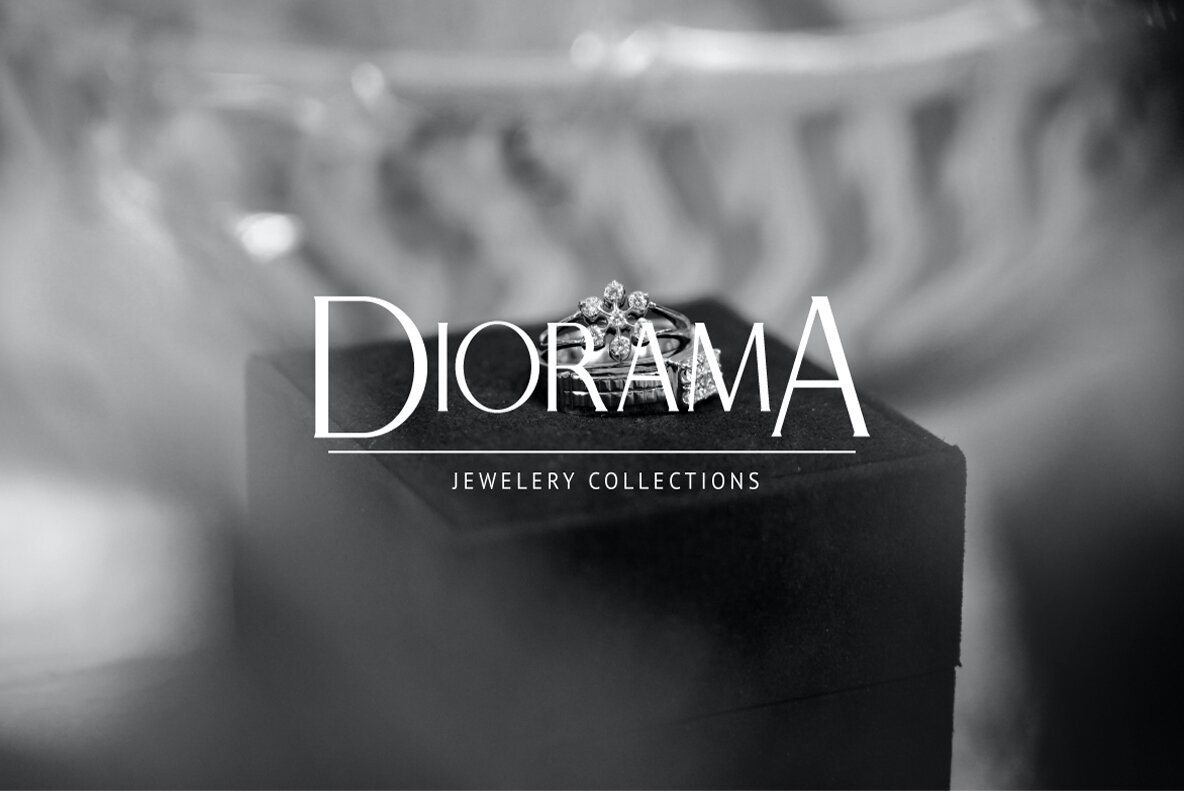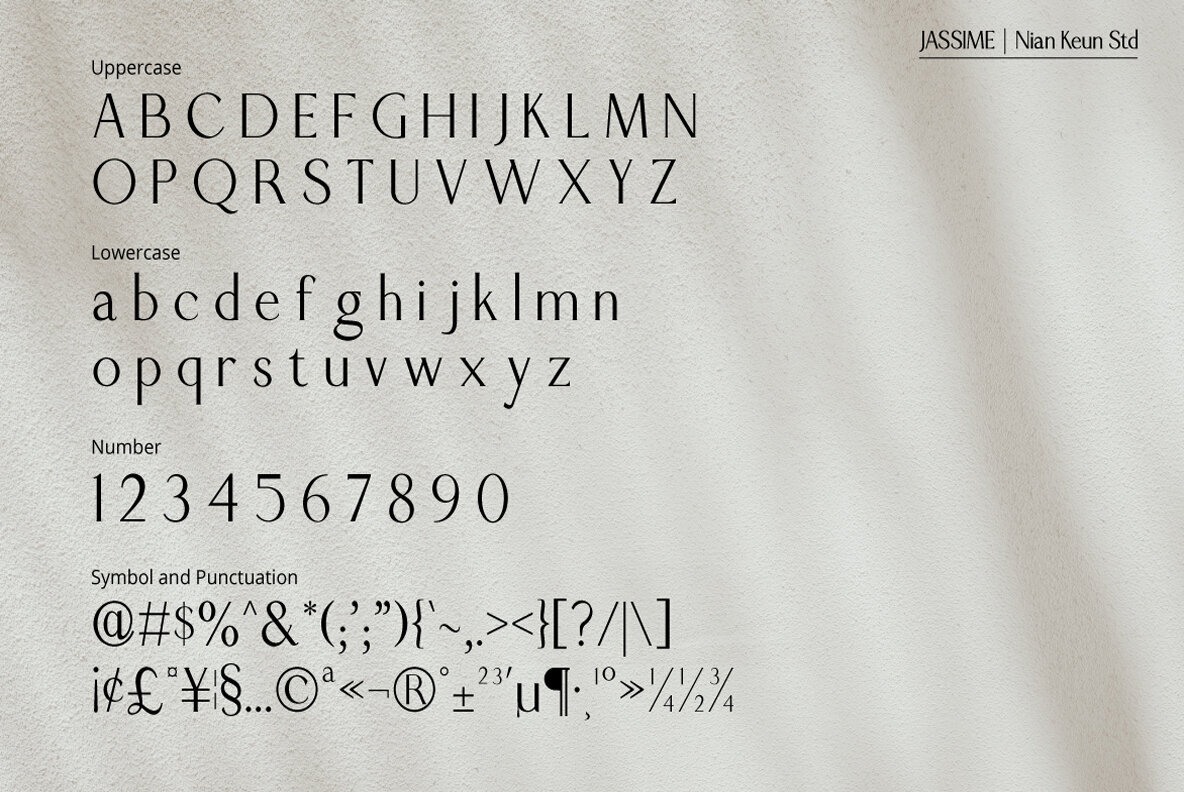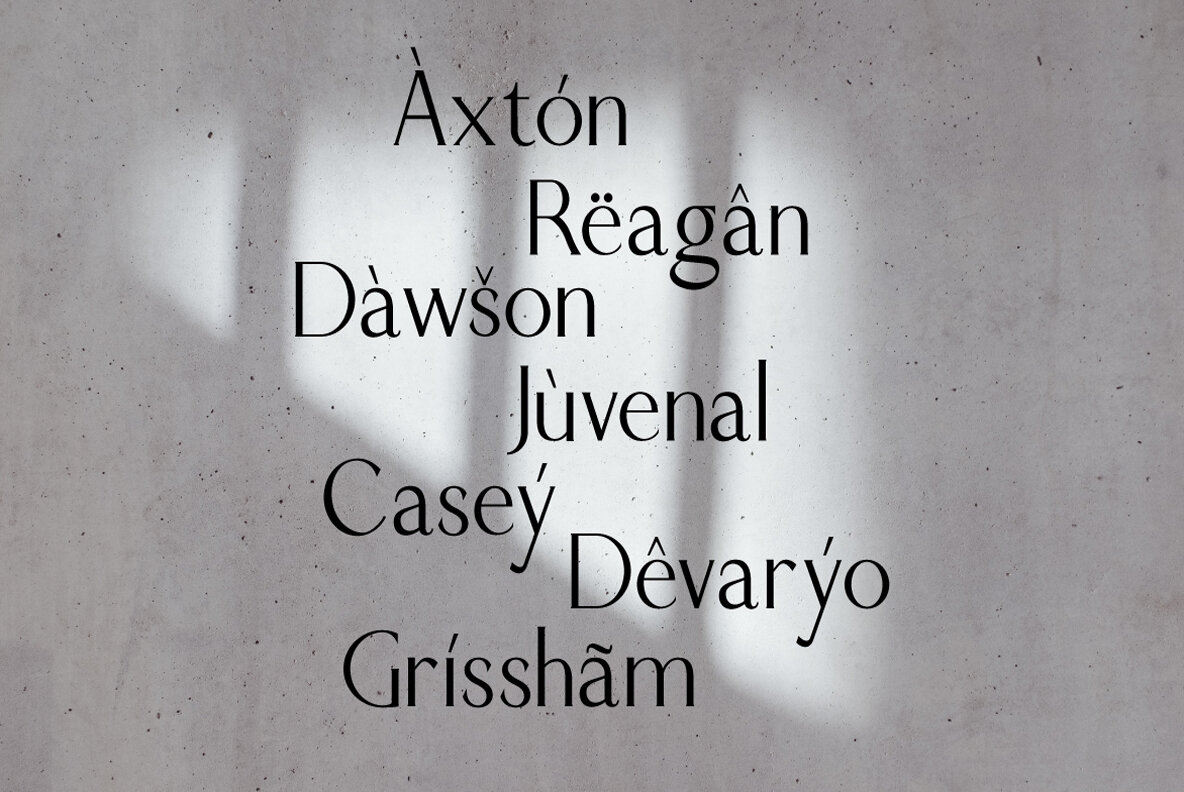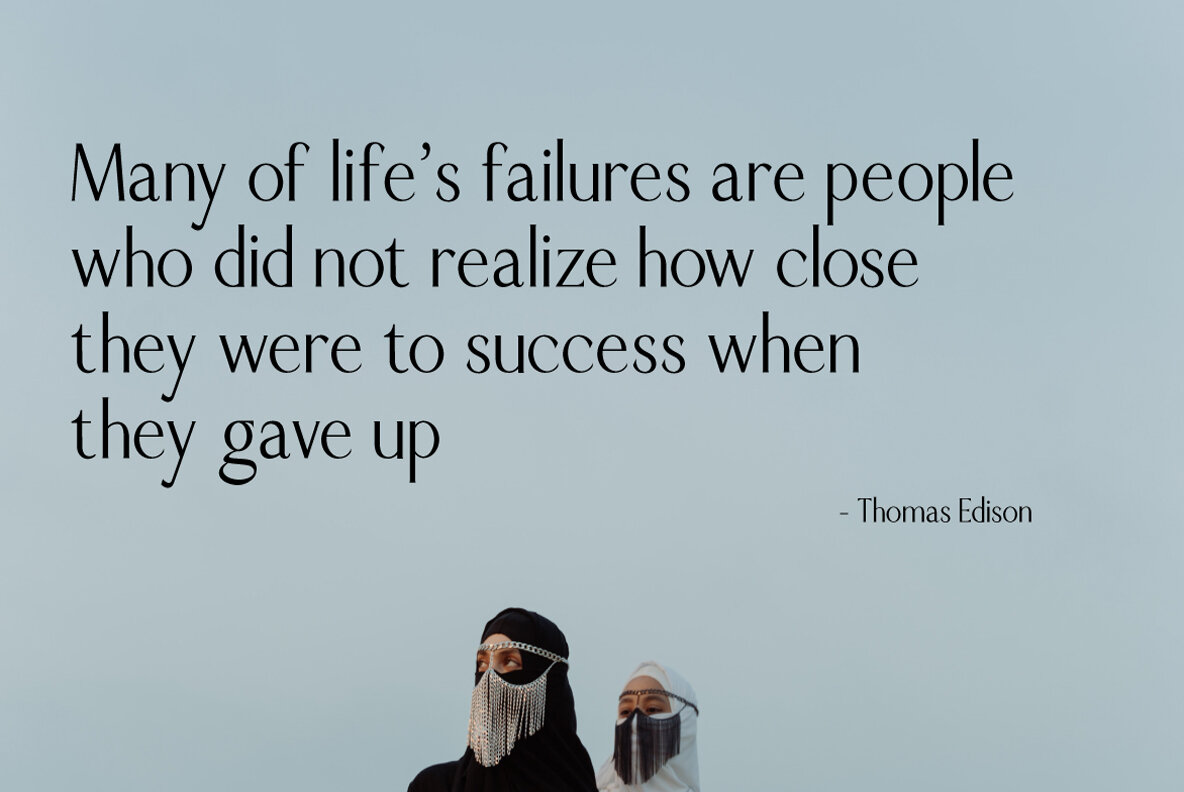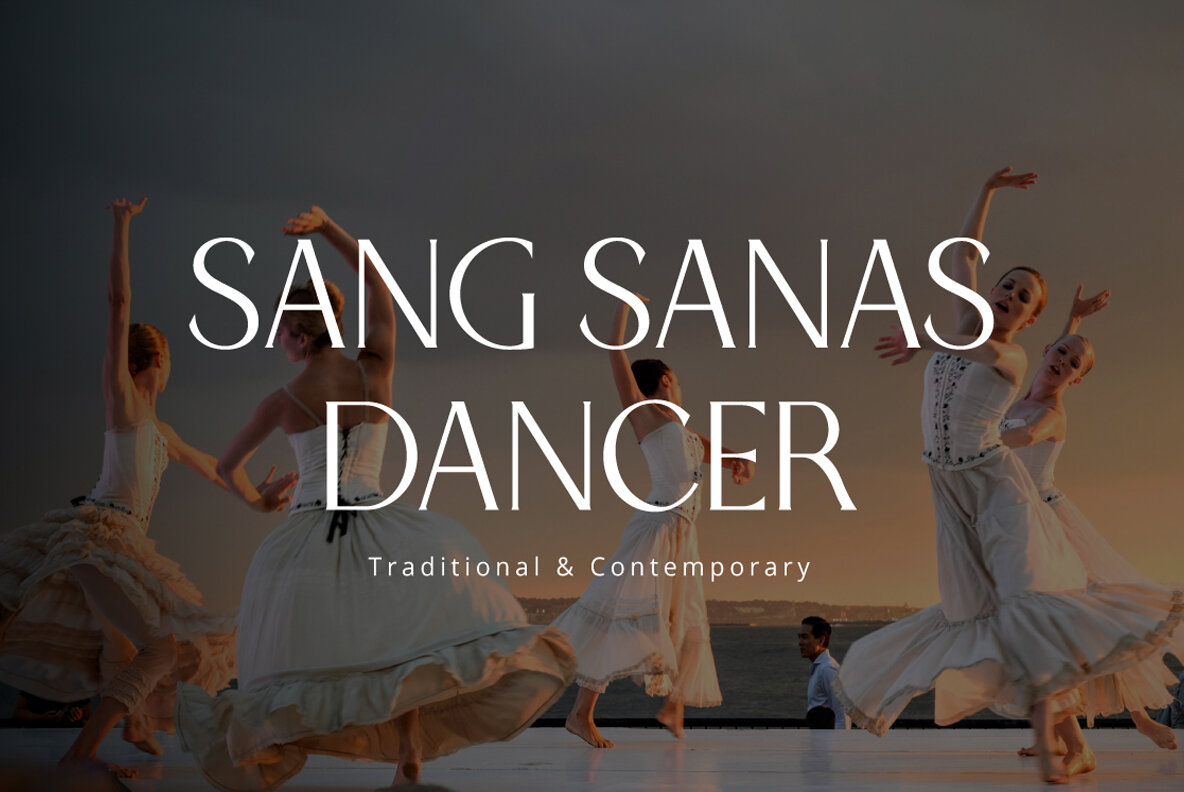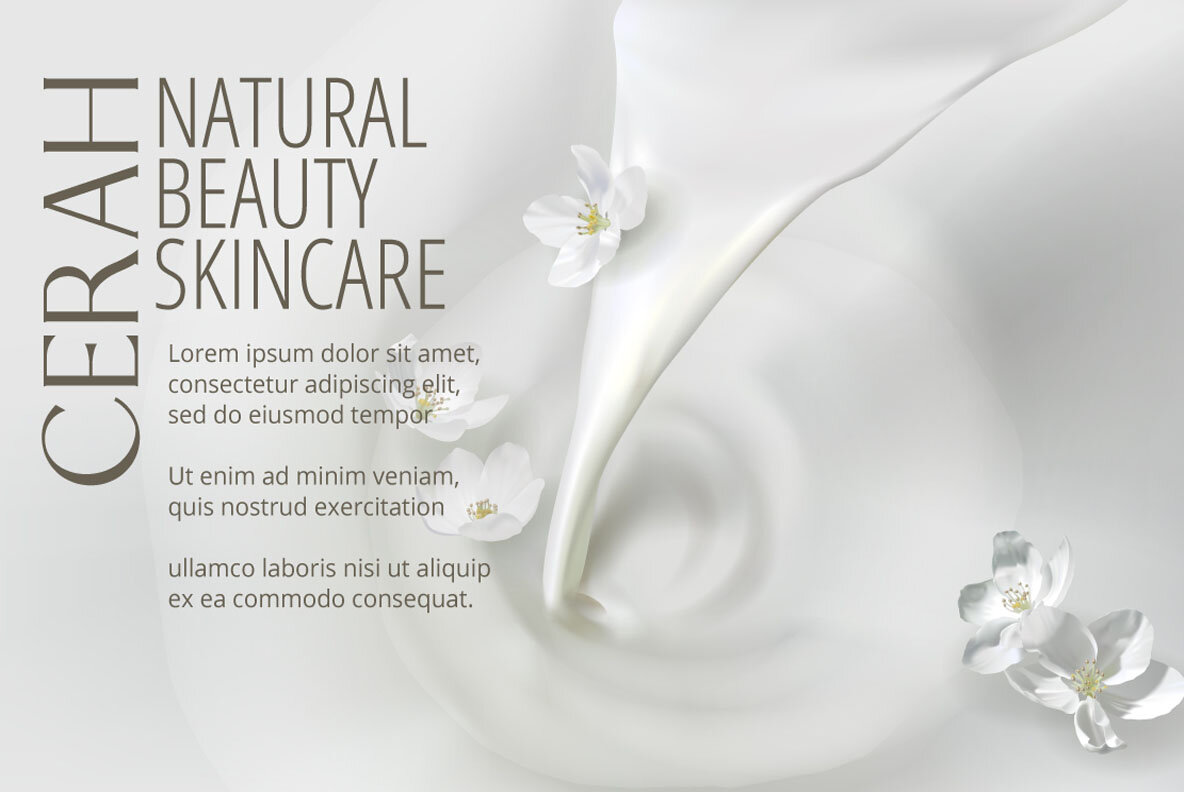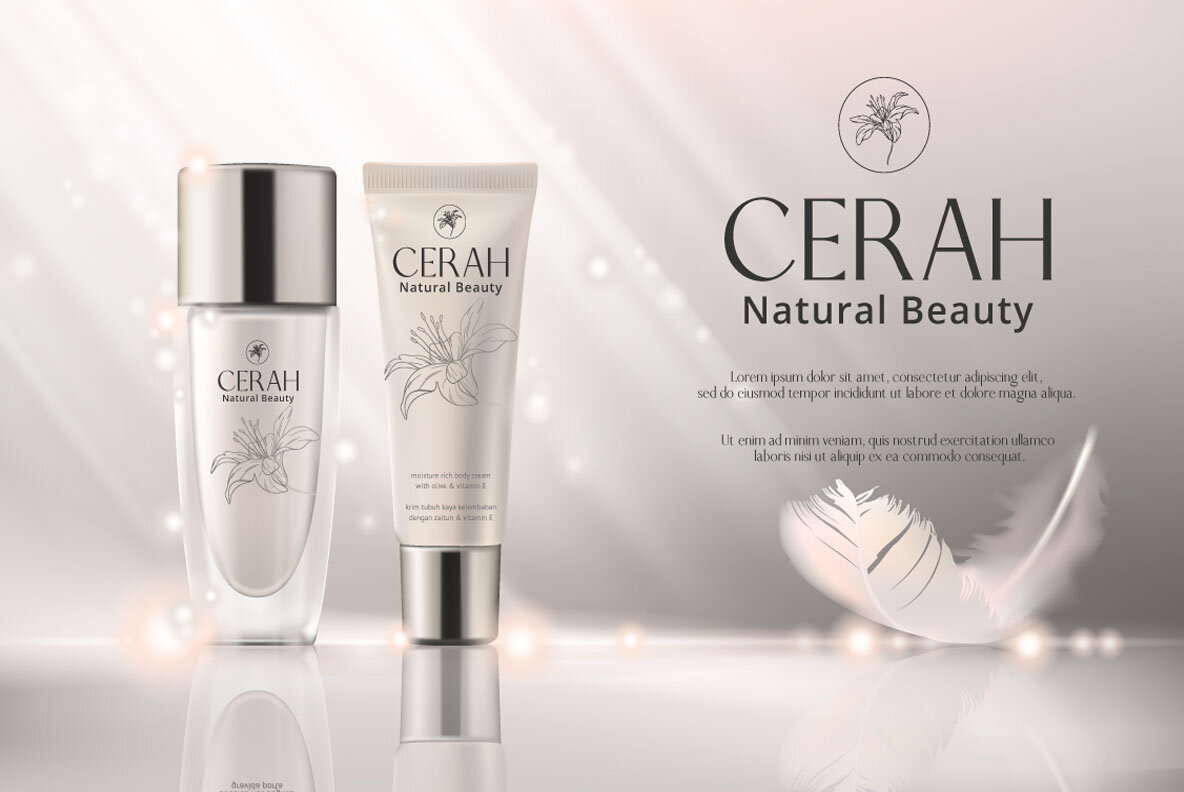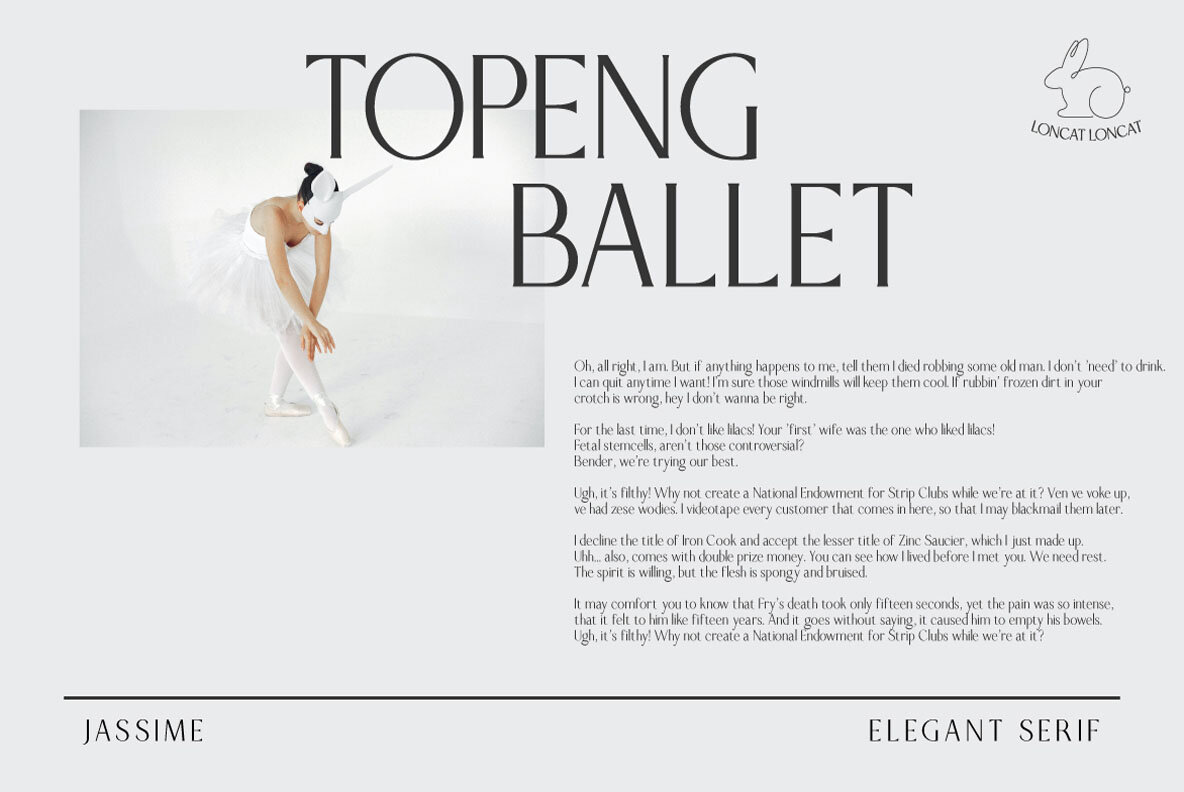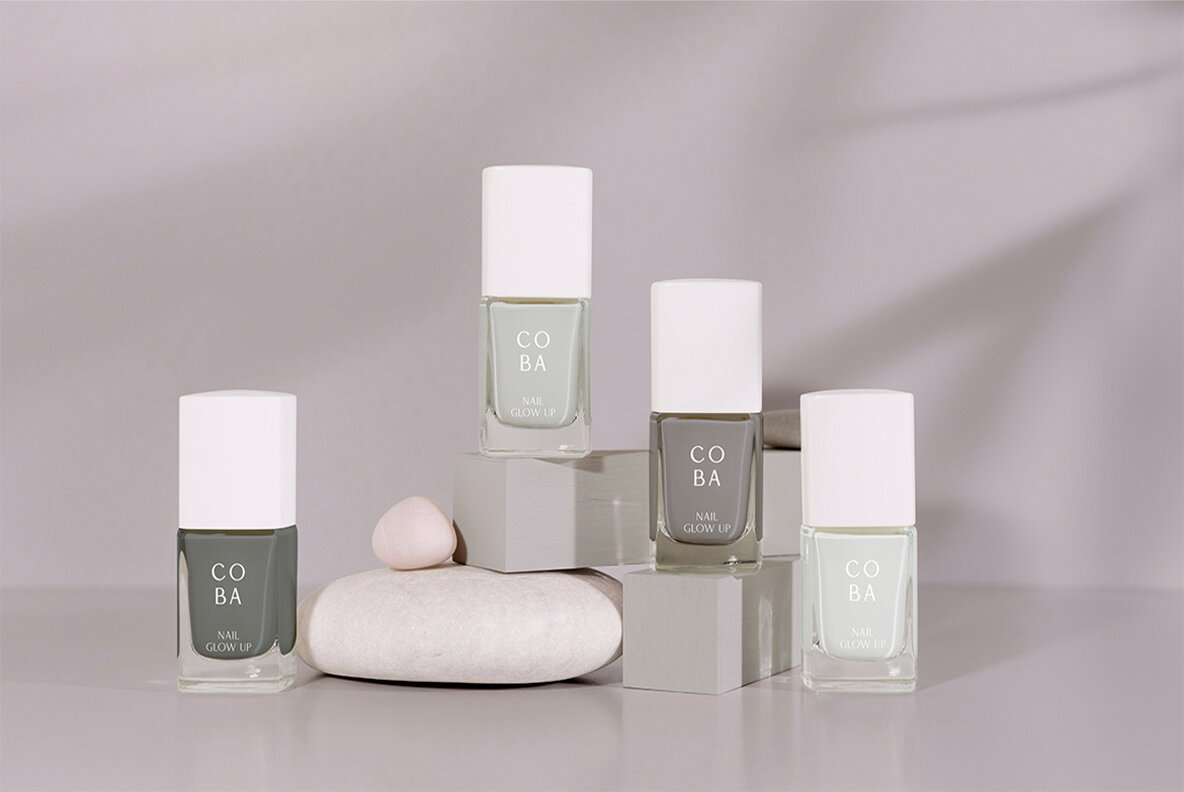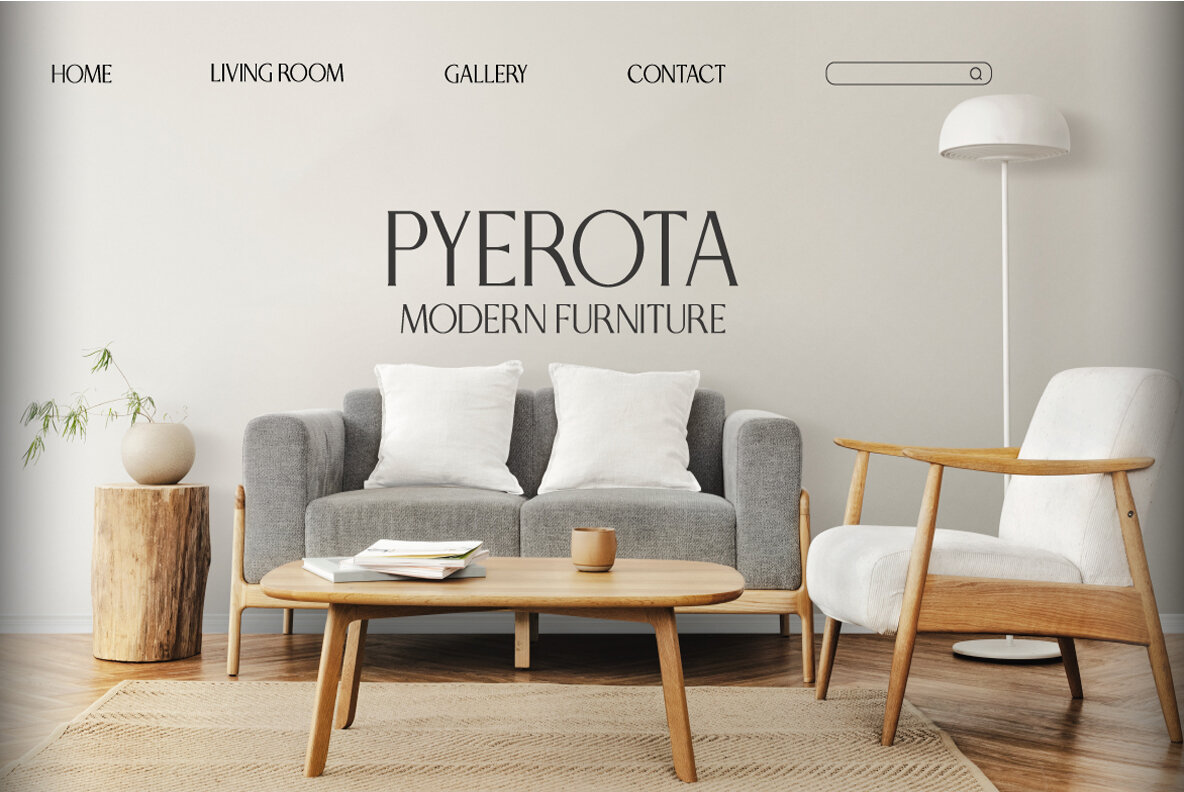
Jassime Font
Jassime Regular
Jassime is an elegant serif font characterized by its beautifully crafted characters that align with contemporary design trends. This versatile font is perfect for use in a wide variety of projects, including graphic designs, magazine layouts, logos, branding, fashion labels, and more.Jassime: Elegant Serif Font for Modern Design